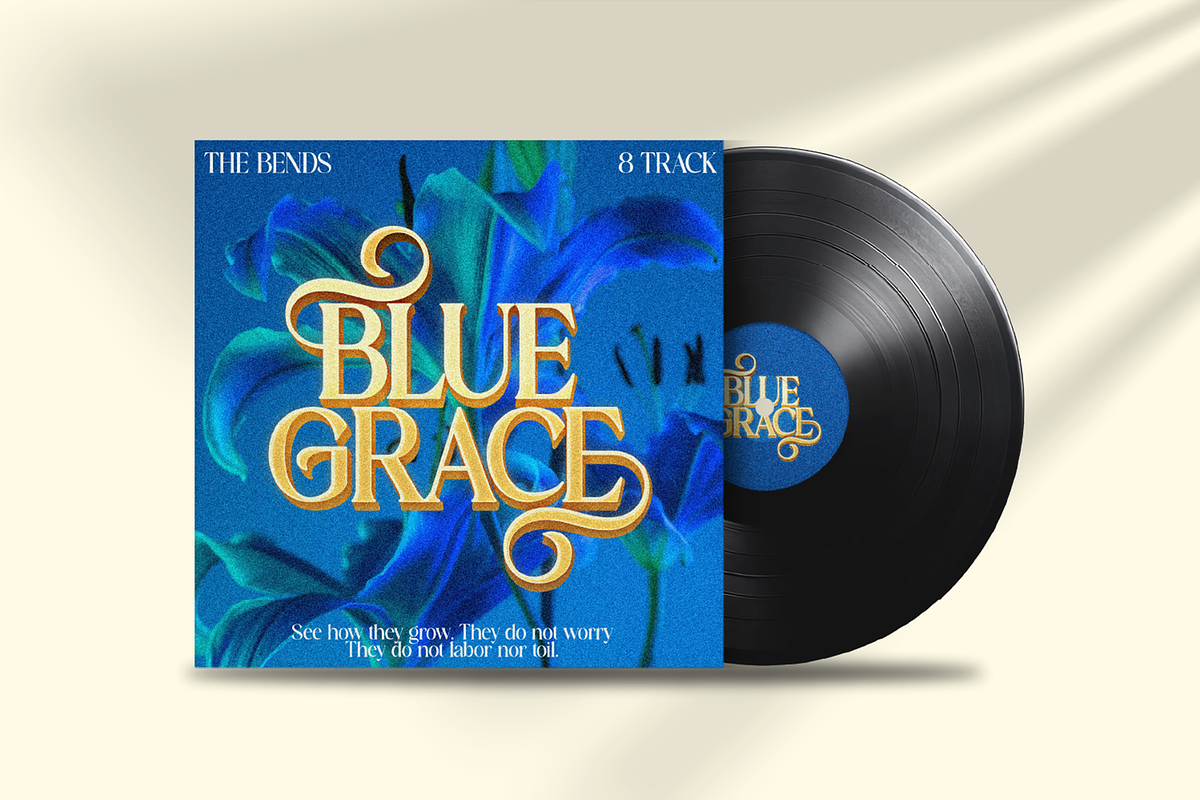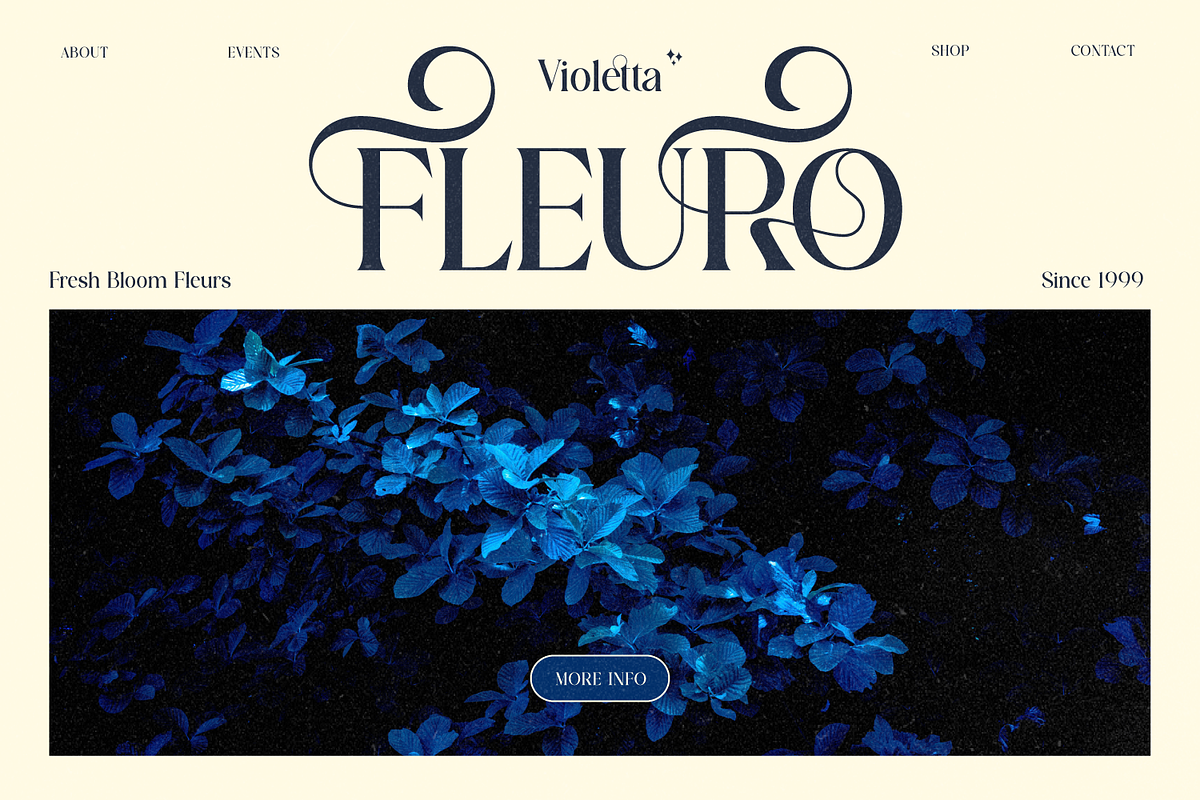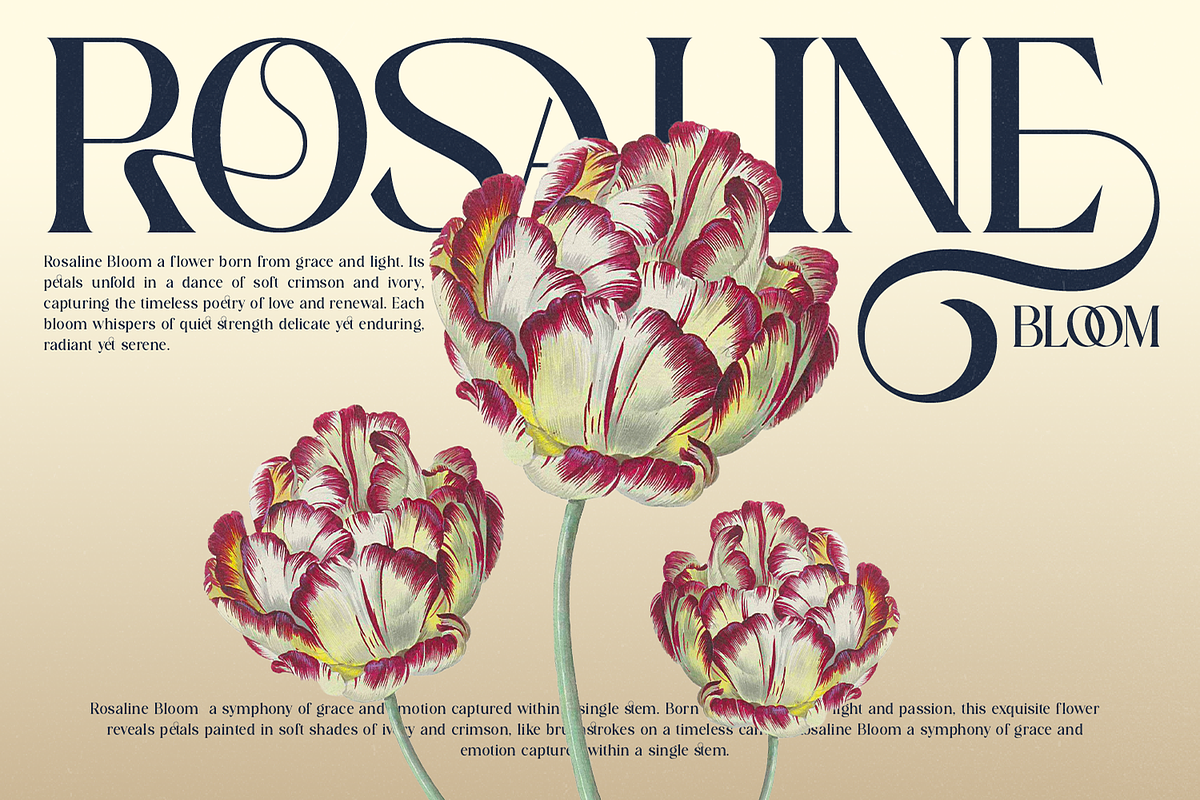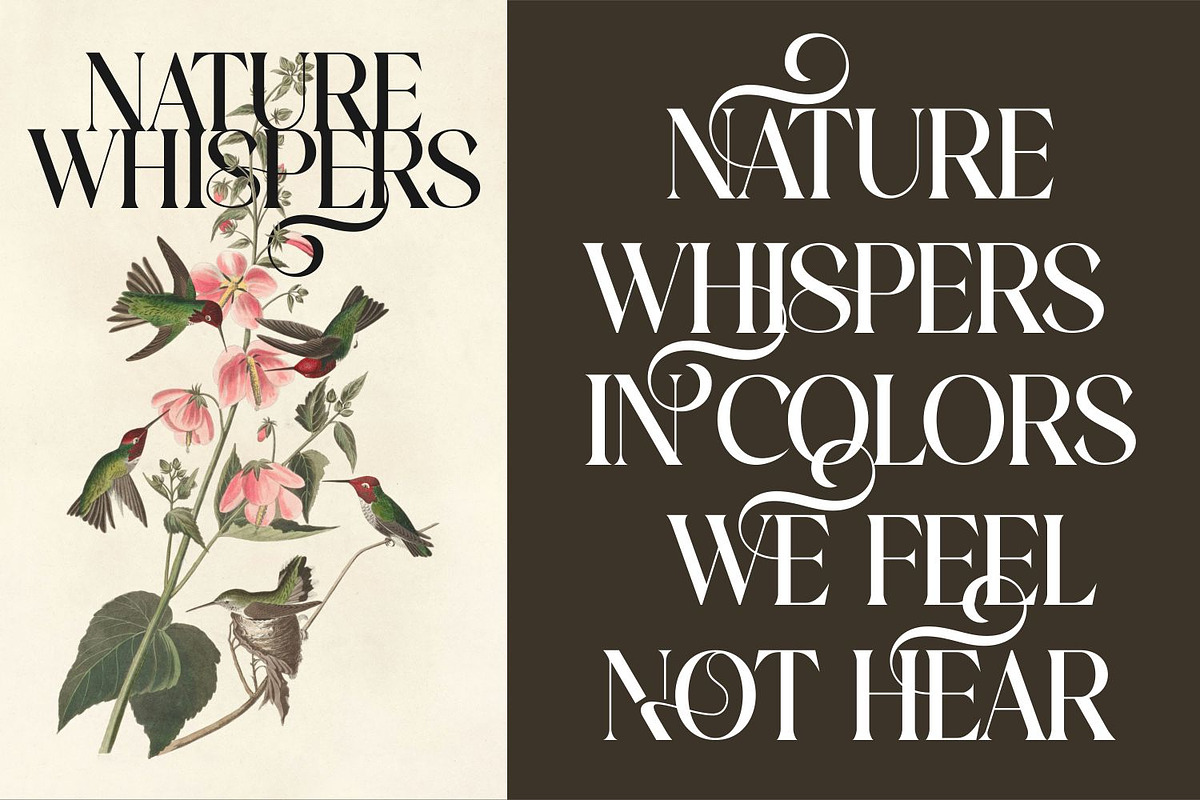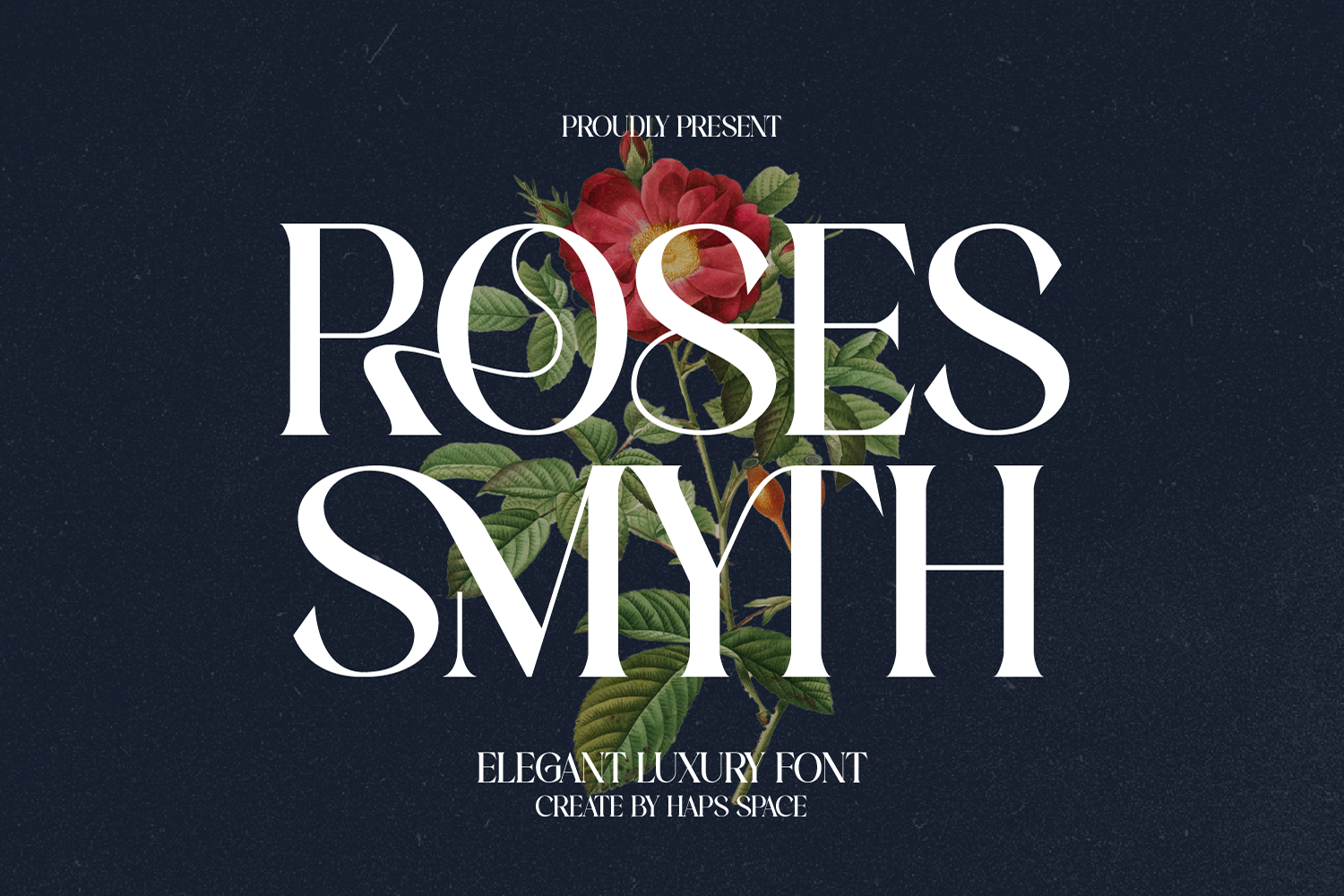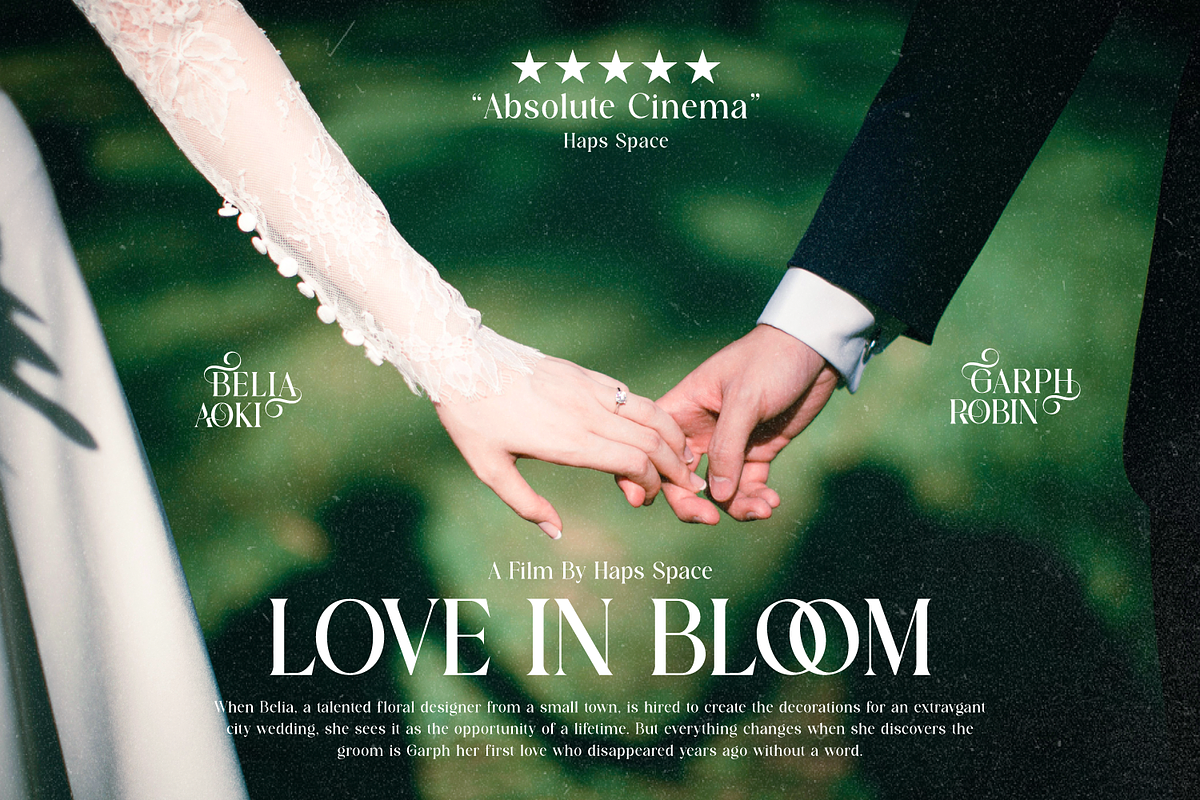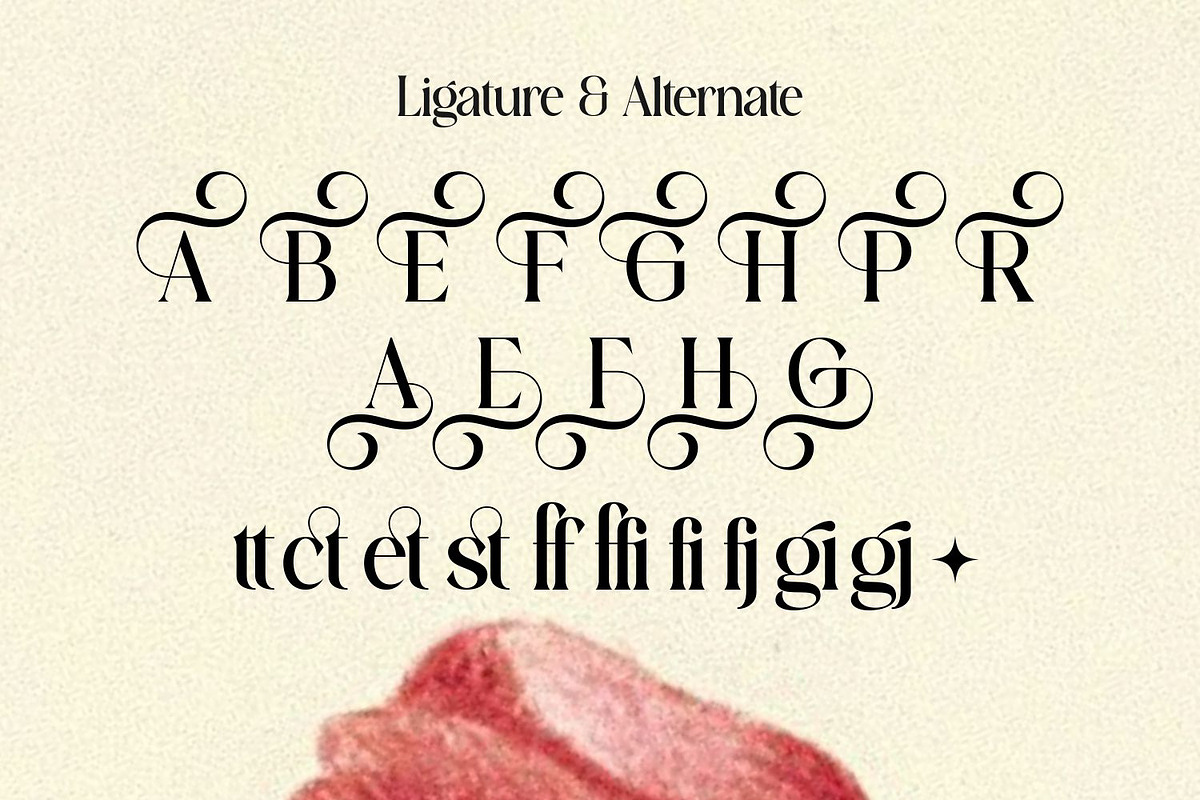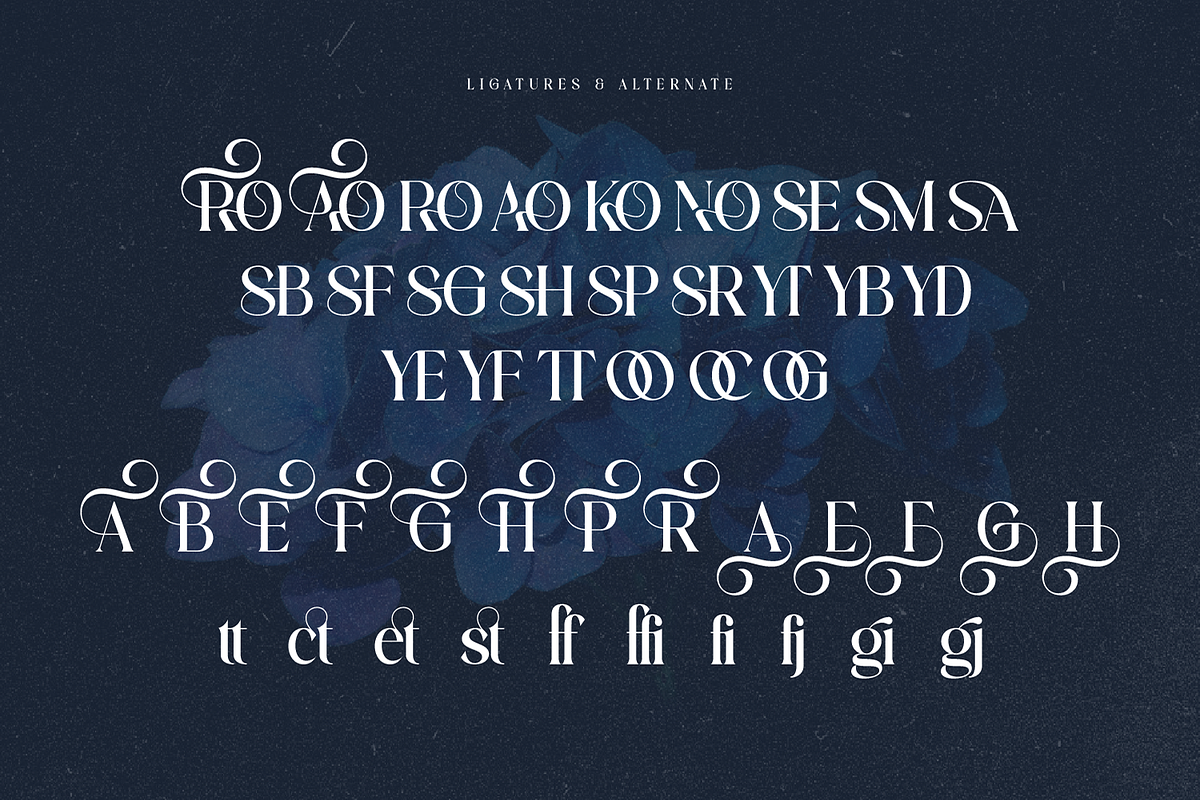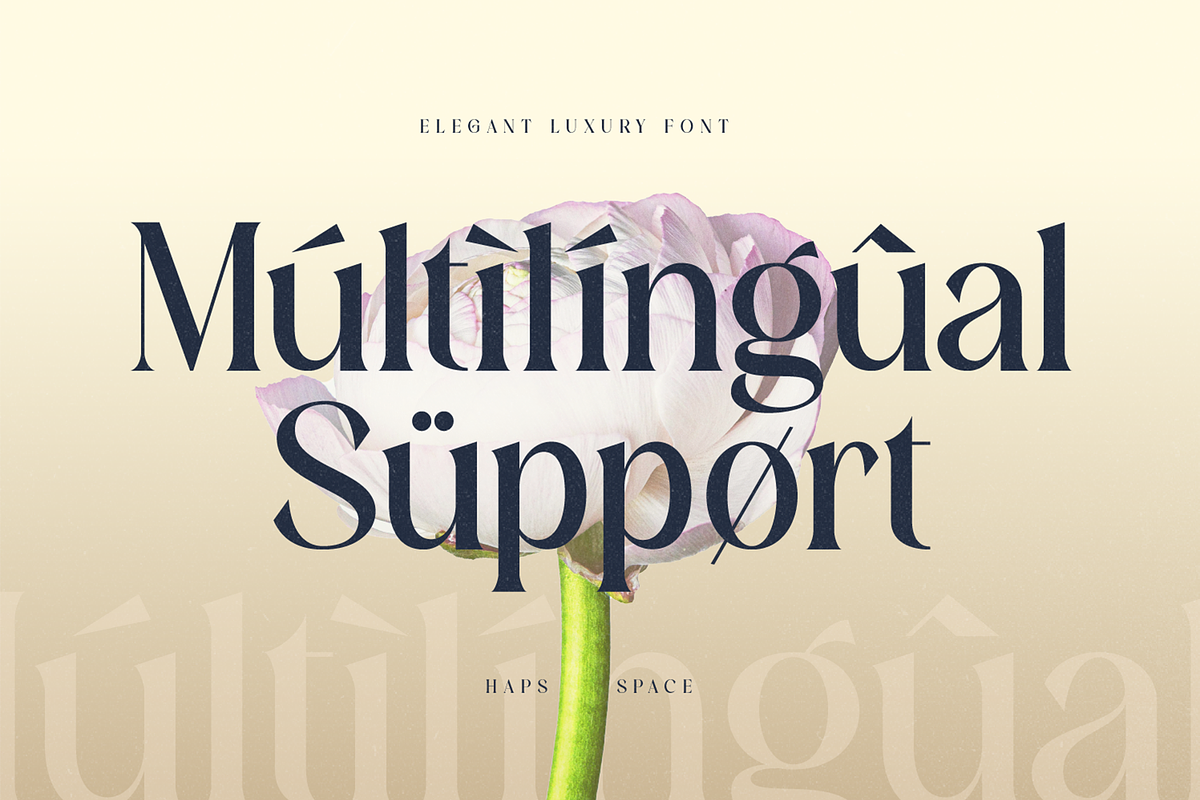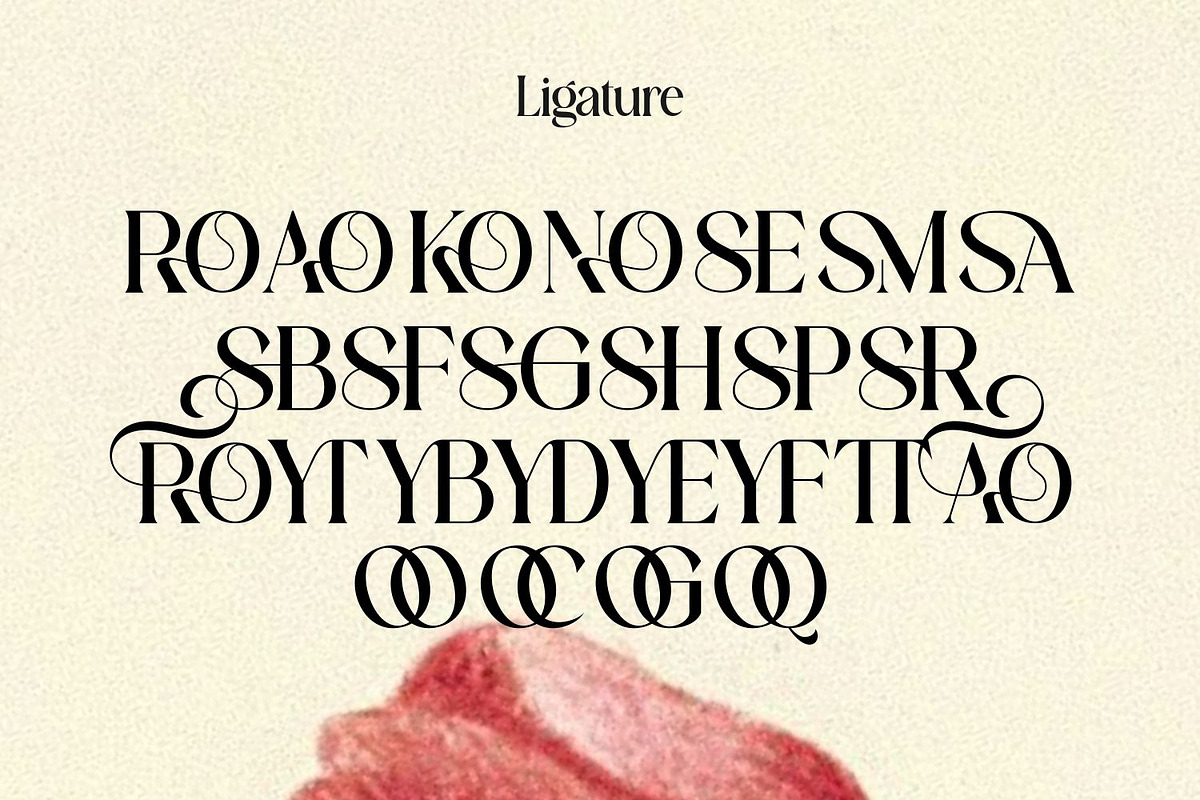
Roses Smyth Elegant Font
Roses Smyth is an elegant serif font inspired by classic typography and timeless beauty. Featuring high-contrast strokes, refined curves, and sophisticated letterforms, this font is designed to elevate design projects with a graceful and editorial feel.
Perfect for fashion branding, wedding designs, magazine titles, packaging, invitations, and high-end visual identities, Roses Smyth delivers a balance of romance and professionalism. Its distinctive serif details create a strong visual presence while maintaining excellent readability across print and digital media.
An ideal choice for designers seeking a refined, romantic, and upscale typographic style.
- Full multilingual character set
- OpenType features such as ligatures and alternates